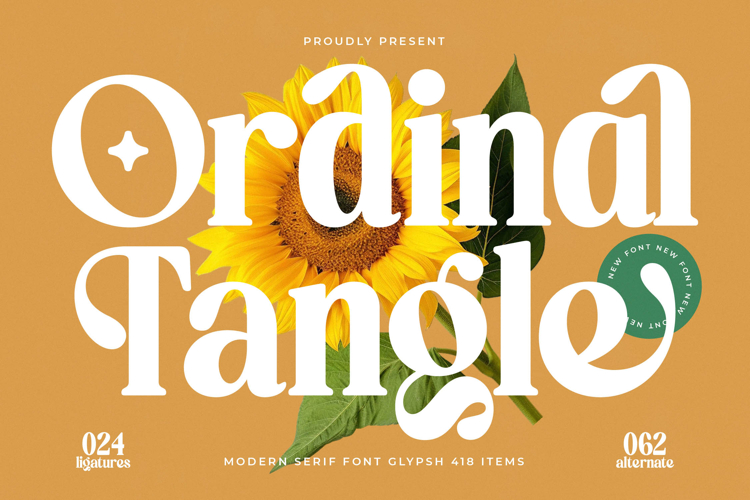
Ordinal Tangle - Modern Serif Font
Elevate your design projects with the unparalleled elegance of Ordinal Tangle - Modern Serif Font. This font masterfully blends classic sophistication with a fresh, contemporary appeal. Its distinctive high-contrast strokes and graceful curves create a mesmerizing visual rhythm, ensuring every headline and display text makes an immediate impact. The unique character forms and refined serifs imbue a sense of bespoke craftsmanship, setting your work apart with effortless charm and a truly luxurious aesthetic.
Unlock a new realm of creative possibilities with its rich feature set. Ordinal Tangle - Modern Serif Font comes equipped with extensive OpenType features, including 24 elegant ligatures and 62 stylish alternates. These thoughtful additions allow for remarkable customization, transforming ordinary typography into a captivating visual statement. Experiment with unique letter combinations and stylistic variations to craft truly personalized and memorable branding and unique design solutions.
Reach a wider audience without compromising on style or clarity. With its extensive multilingual support, Ordinal Tangle - Modern Serif Font adapts seamlessly across global markets, making it incredibly versatile for international projects. This ensures your message resonates clearly and beautifully, regardless of language, maintaining the font's distinct charm and readability across diverse cultural contexts and expanding your brand's reach.